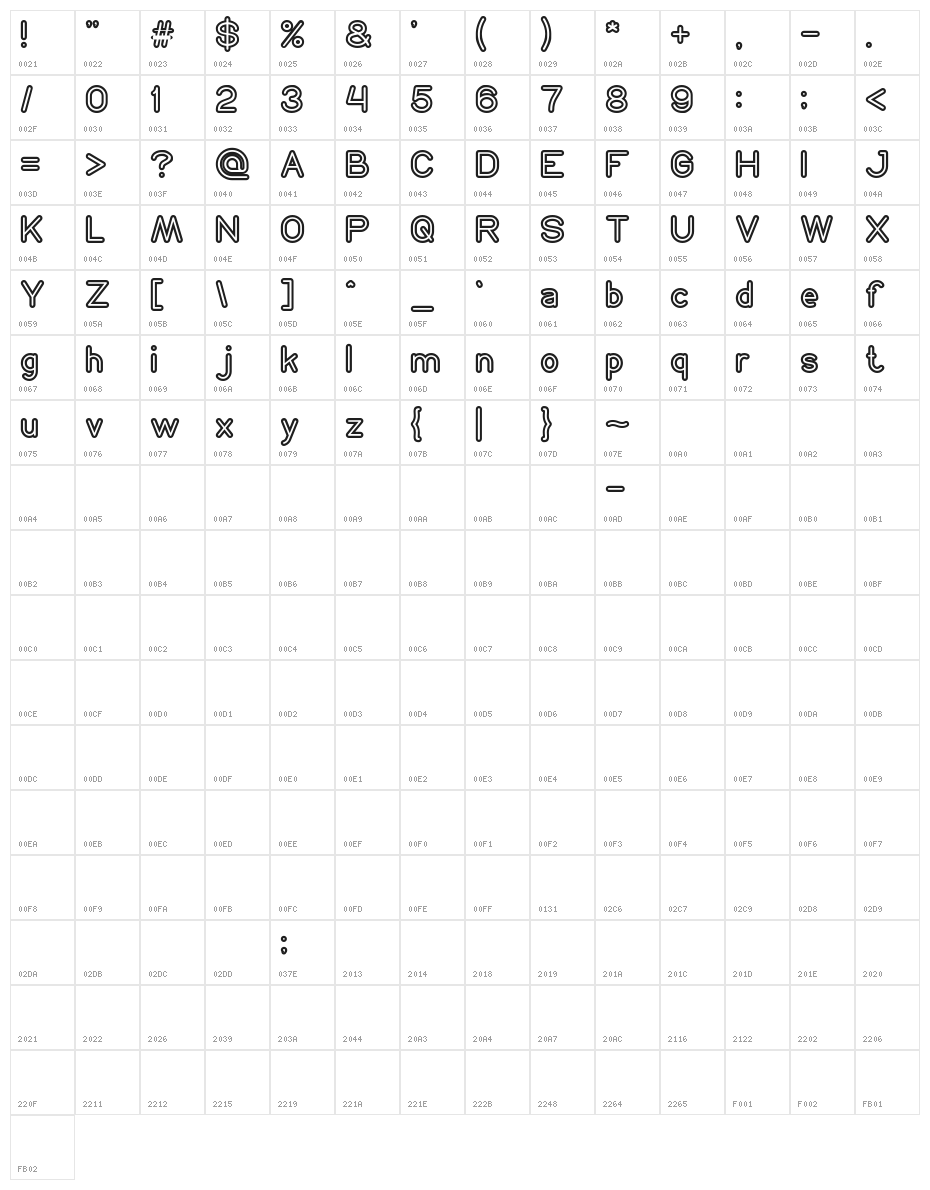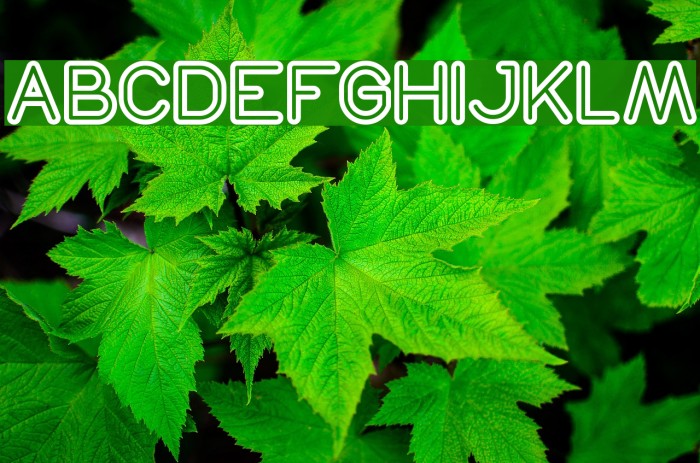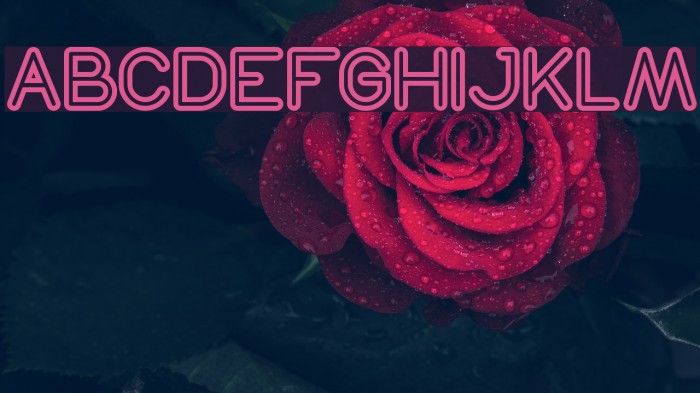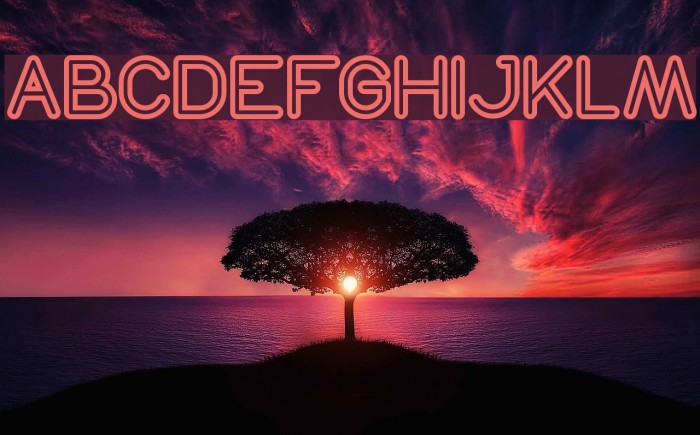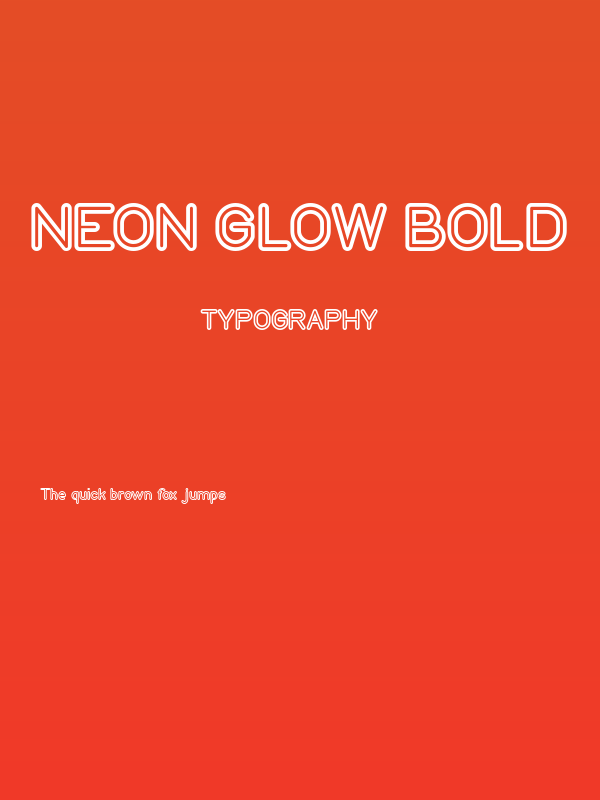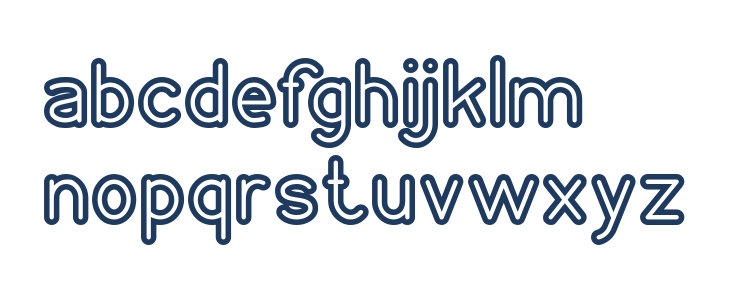
NEON GLOW Bold Font
NEON GLOW Bold Description
This font features a bold, outlined style that mimics the appearance of neon lights. The characters are sans-serif with a consistent stroke width, creating a clean and modern look. The uppercase and lowercase letters maintain a uniform height, while the numerals and special characters are designed to complement the overall aesthetic. The font's design is eye-catching and ideal for creating vibrant, attention-grabbing text. Its geometric shapes and smooth curves contribute to a futuristic and dynamic feel, making it suitable for digital displays and signage.
| Proposed Projects | Ideal for digital signage, event posters, nightclub promotions, and modern branding projects. |